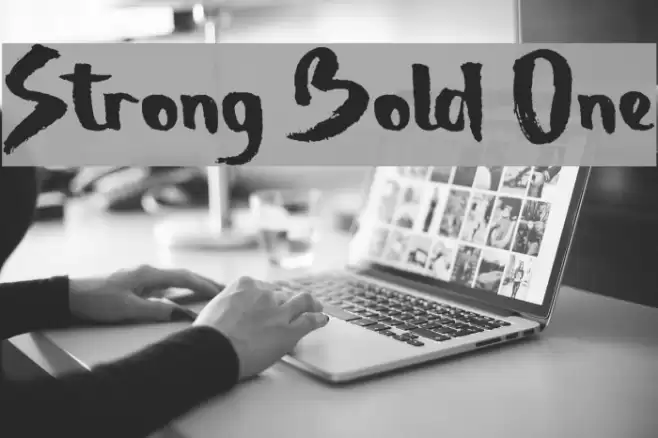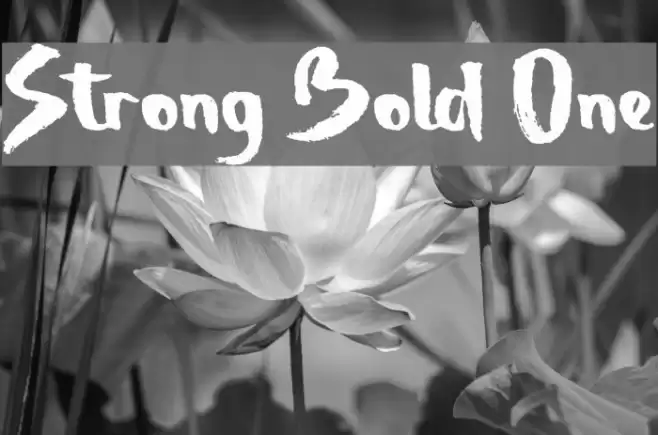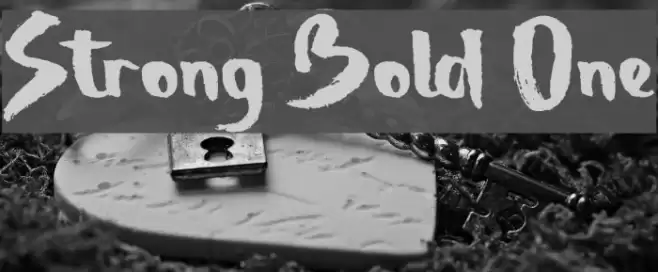
Strong Bold One Font
Strong Bold One Description
This font exudes a bold and expressive style, characterized by its brush-like strokes and dynamic appearance. The letters are crafted with a sense of movement and energy, giving them a hand-painted feel. The uppercase and lowercase letters maintain a consistent thickness, with slight variations that add to the font's organic and artistic nature. The overall impression is one of strength and creativity, making it suitable for projects that require a touch of personality and flair. The font's unique style ensures it stands out, making it ideal for attention-grabbing designs.
A bold, brush-style font with expressive, hand-painted strokes from Uncategorized fonts.
- Proposed Projects: Ideal for posters, branding, packaging, and artistic projects that require a bold statement.
- Overall Style: Modern, Artistic